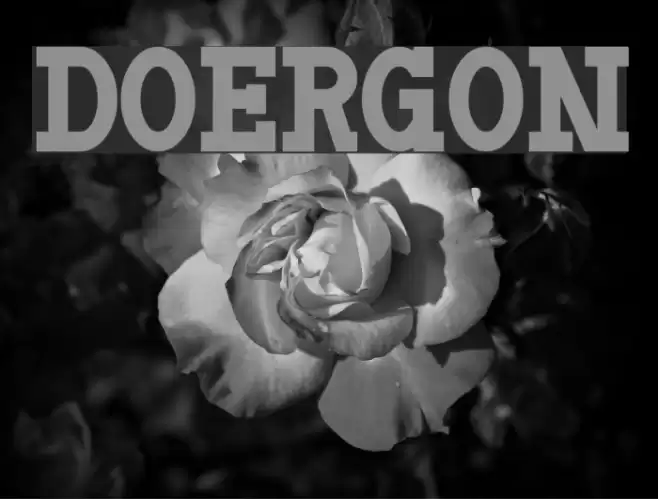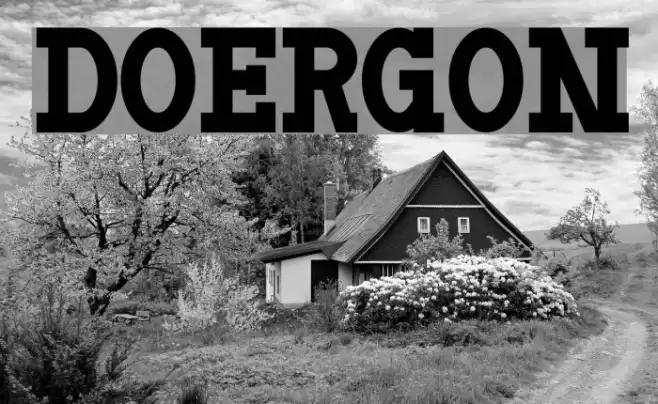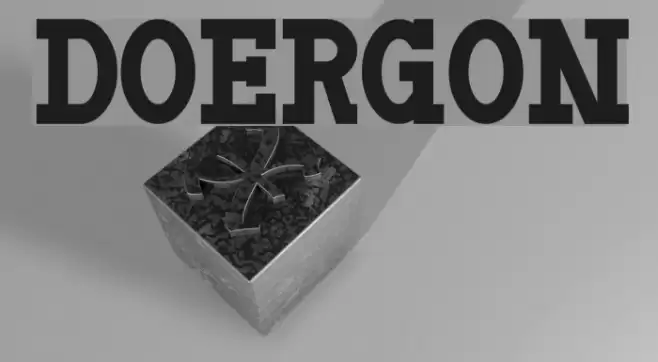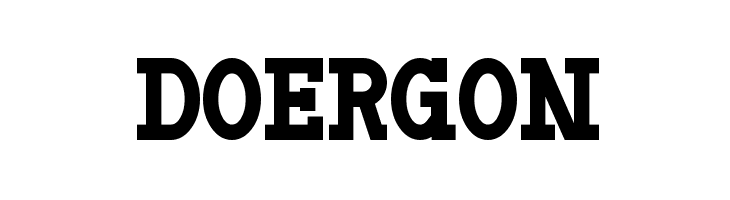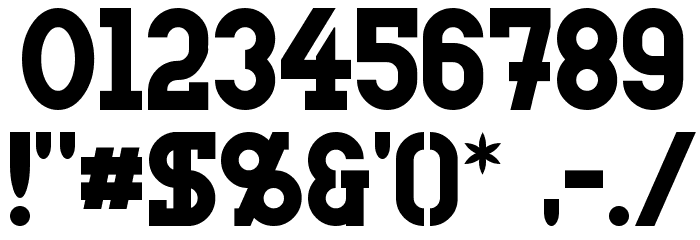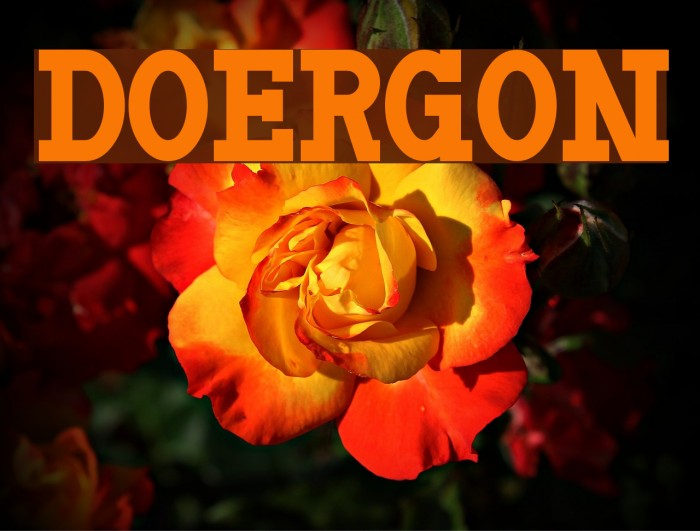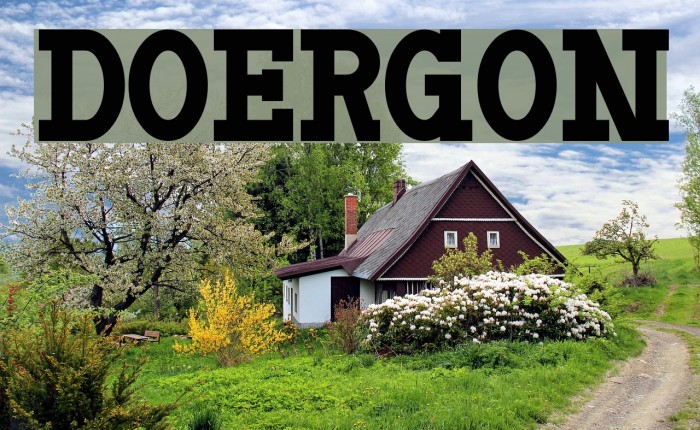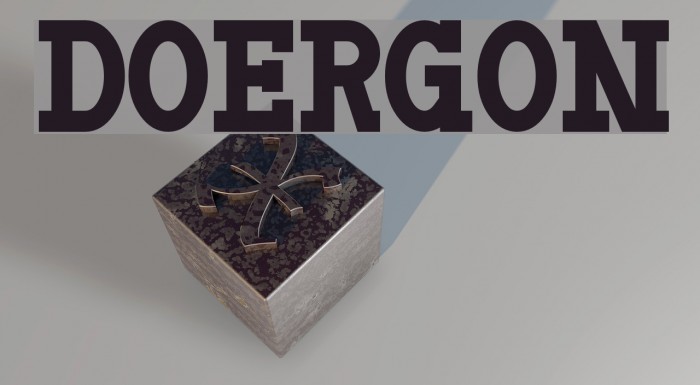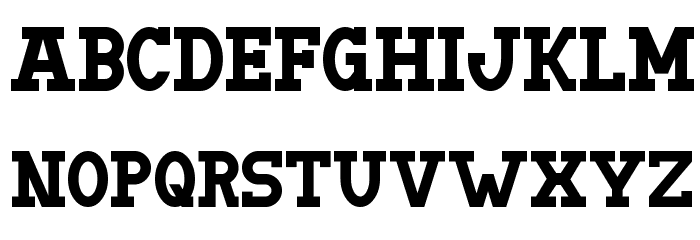
Doergon Font
Doergon Description
This font features bold, impactful characters with a strong presence, characterized by thick strokes and slab serifs. The uppercase letters are uniform in height, creating a cohesive and structured appearance. The numerals are equally bold, ensuring readability and emphasis. Special characters are designed with the same robust style, maintaining consistency across all glyphs. The overall design is reminiscent of vintage typefaces, yet it retains a modern edge, making it versatile for various applications.
A bold, slab serif font with a vintage yet modern appeal from Uncategorized fonts.
- Proposed Projects: Ideal for branding, poster design, headlines, and any project requiring a strong, impactful typeface.
- Overall Style: Vintage